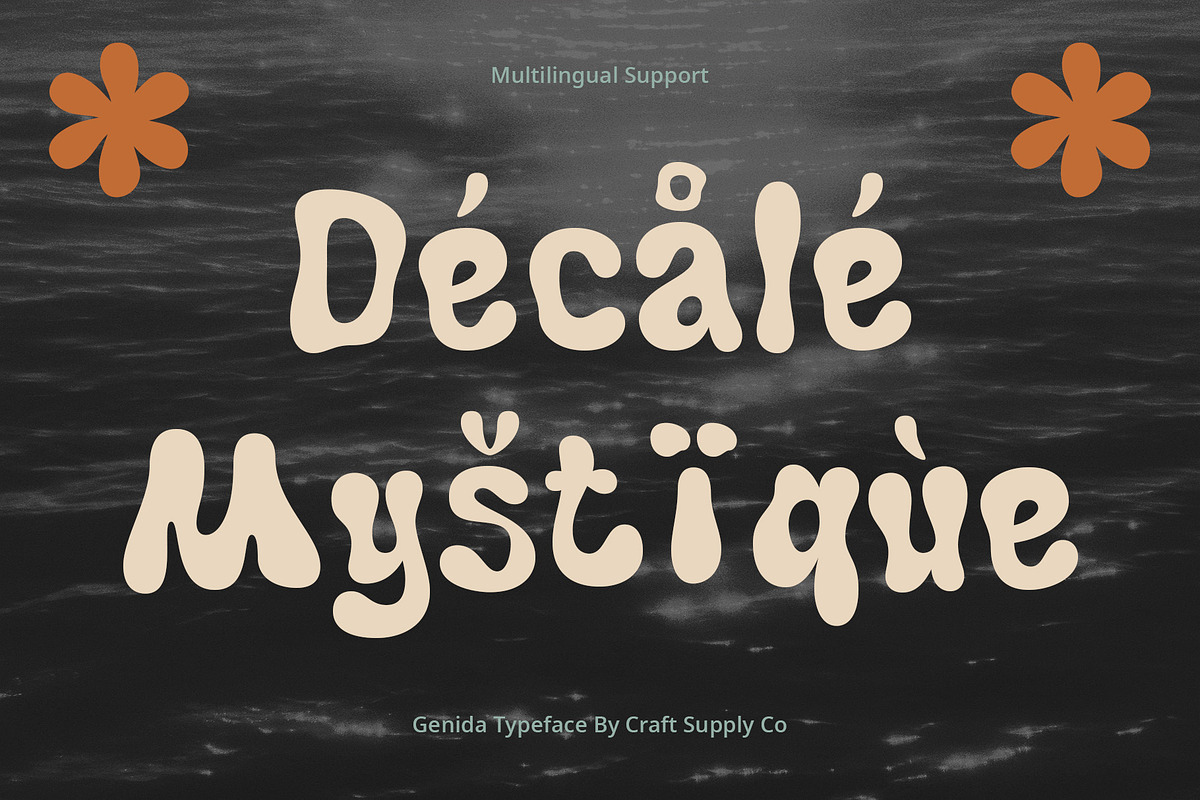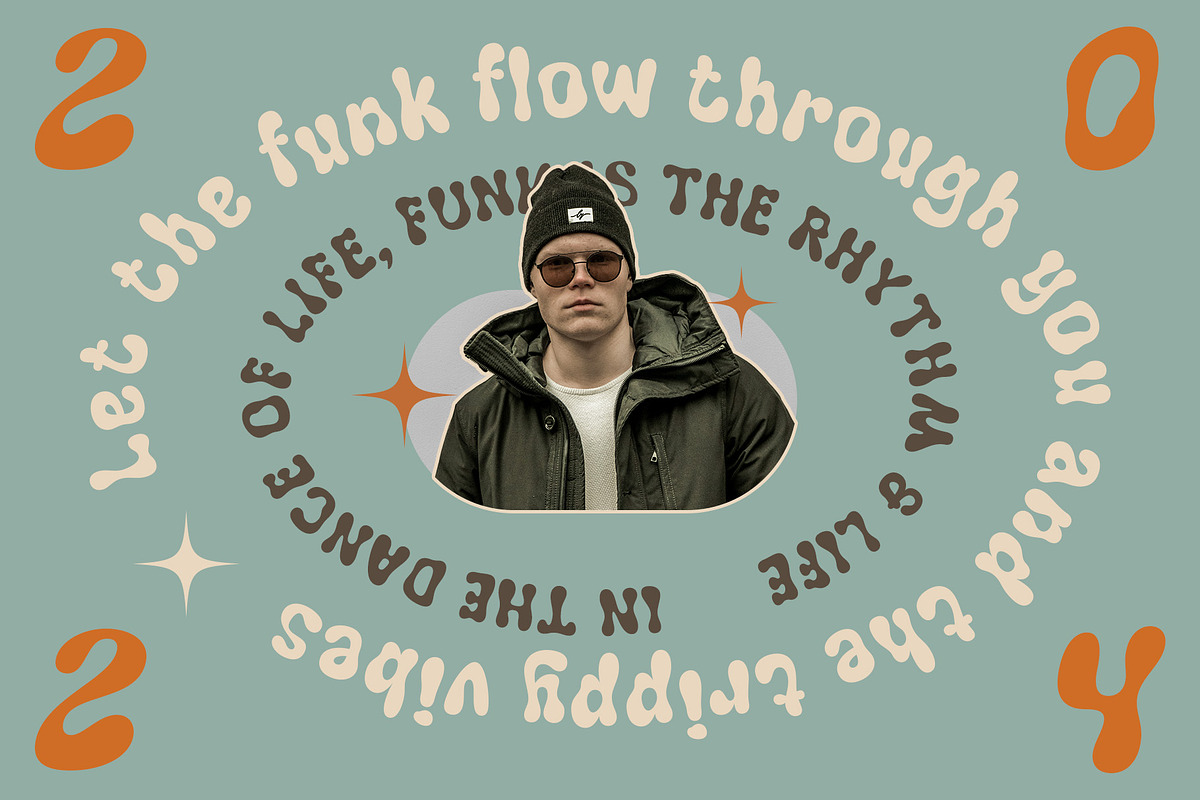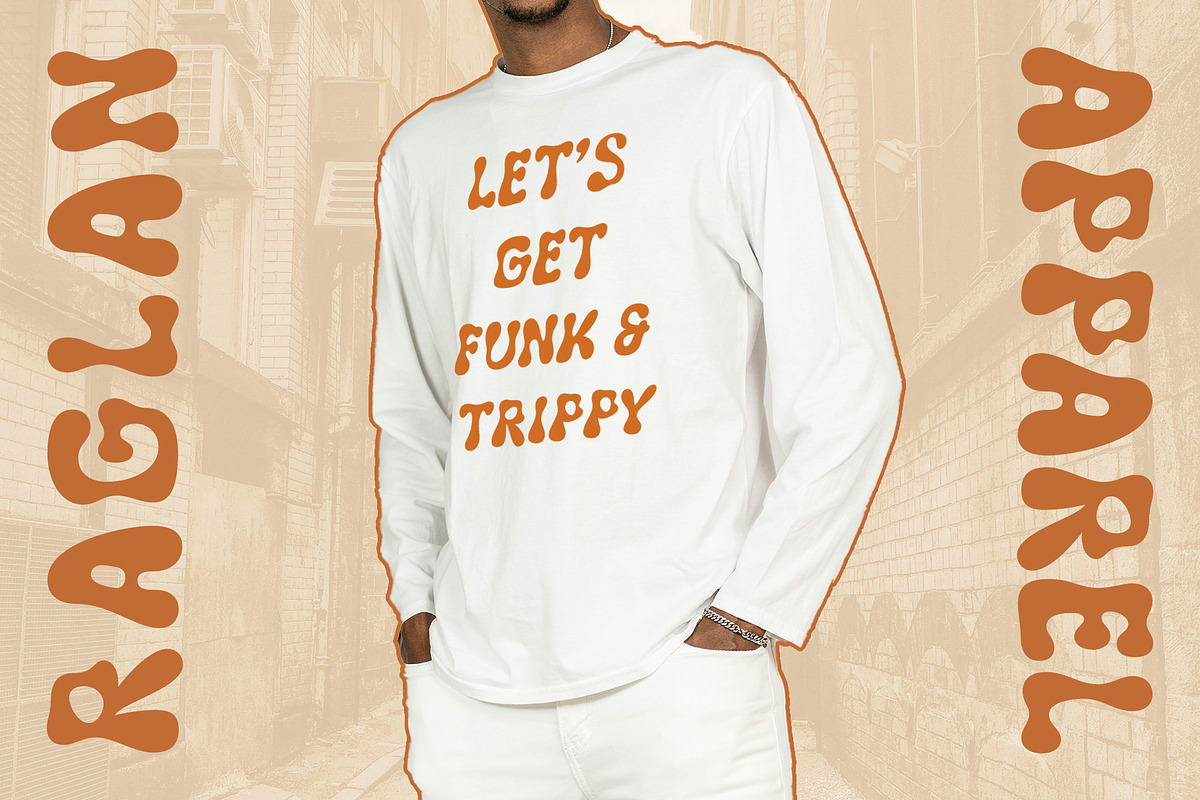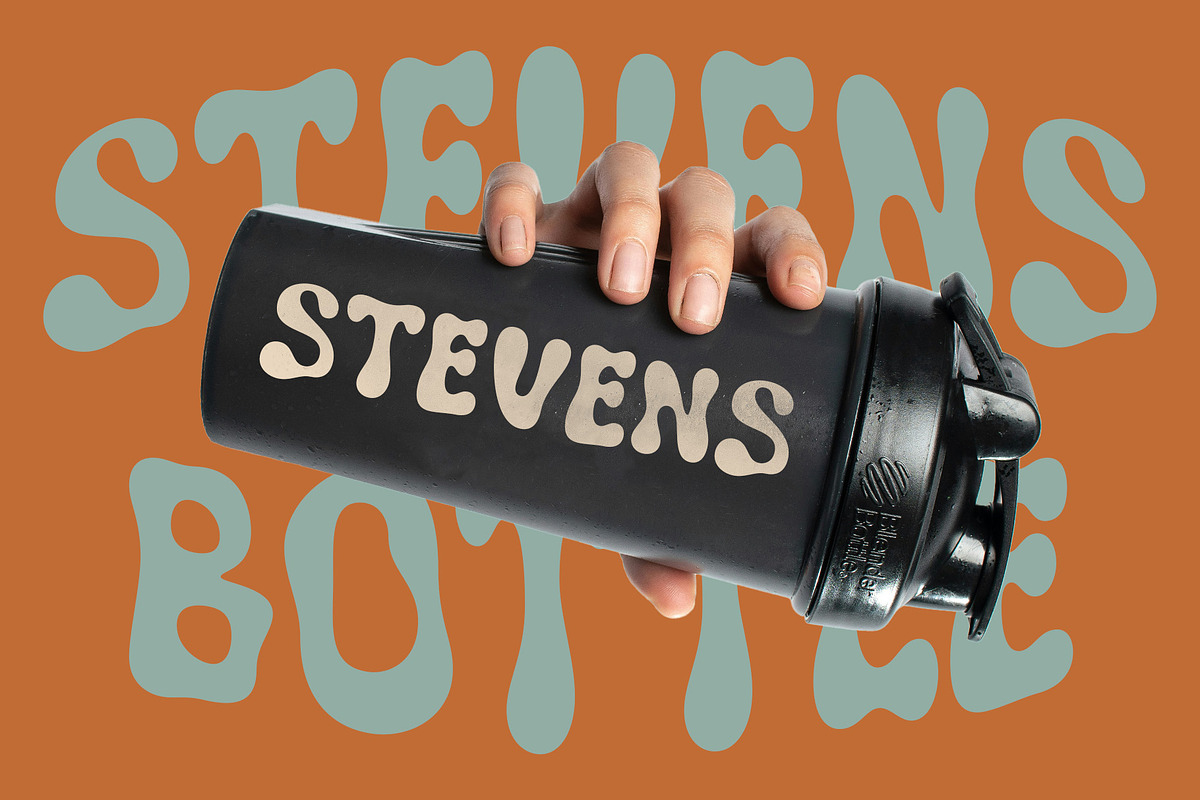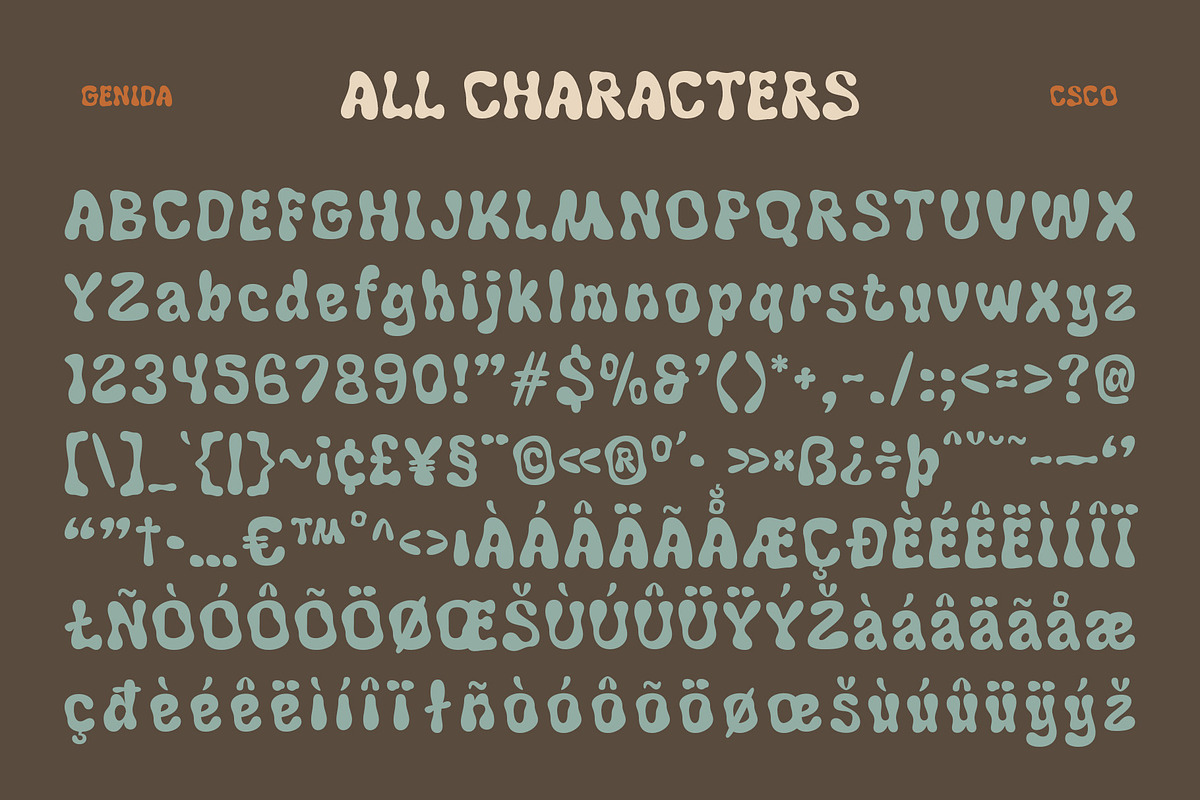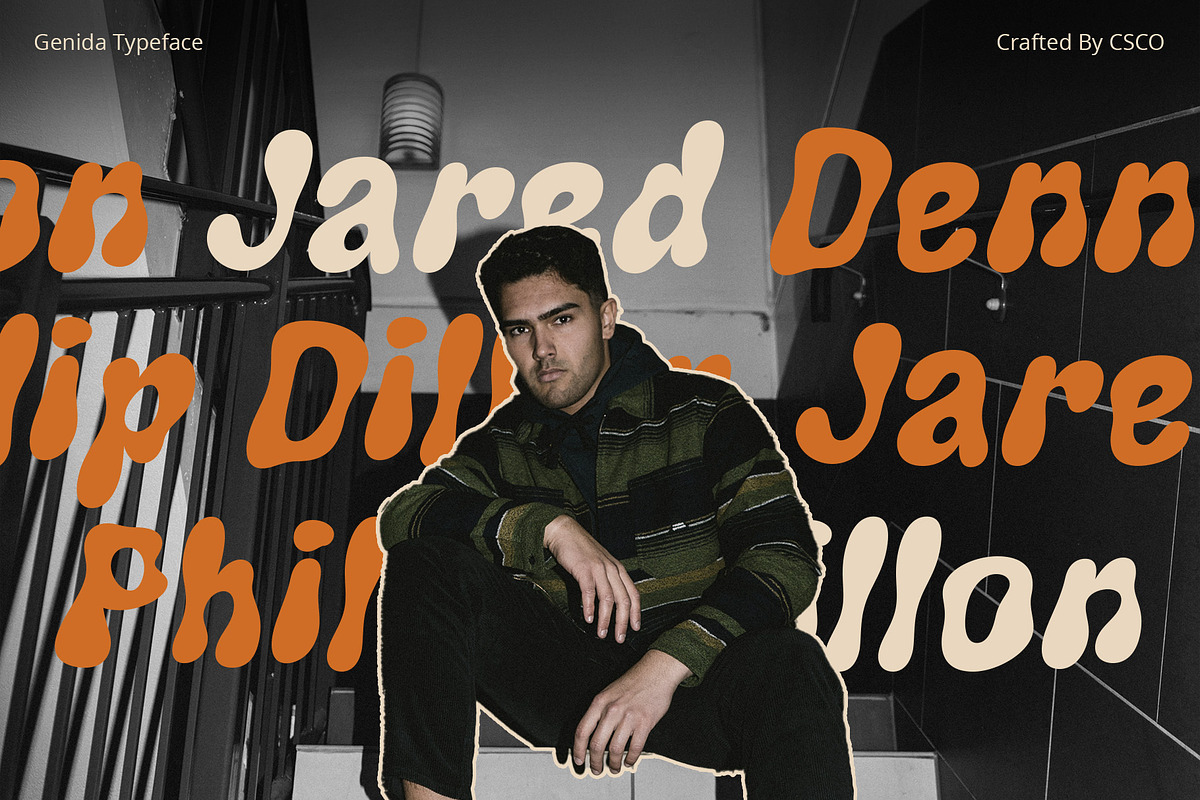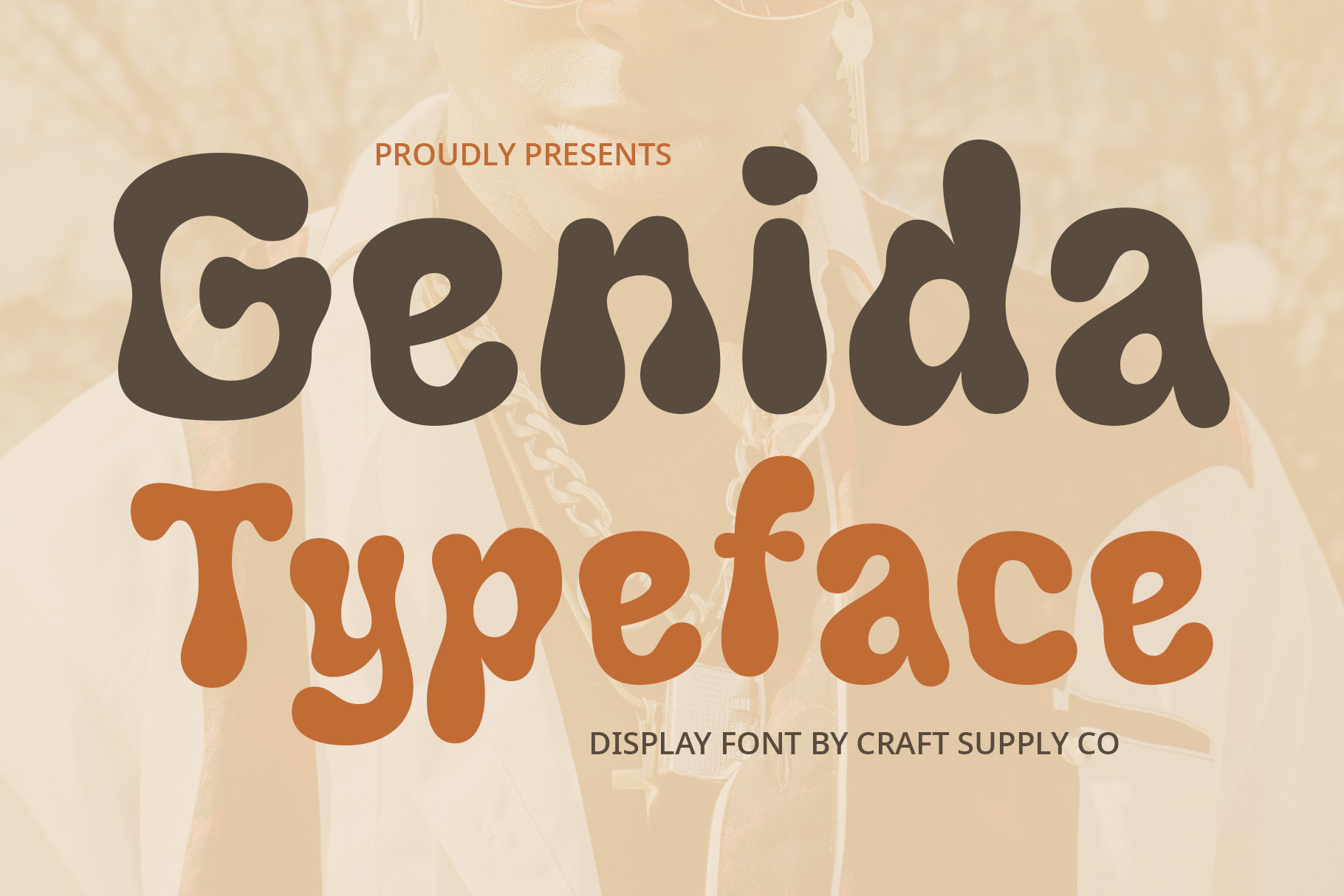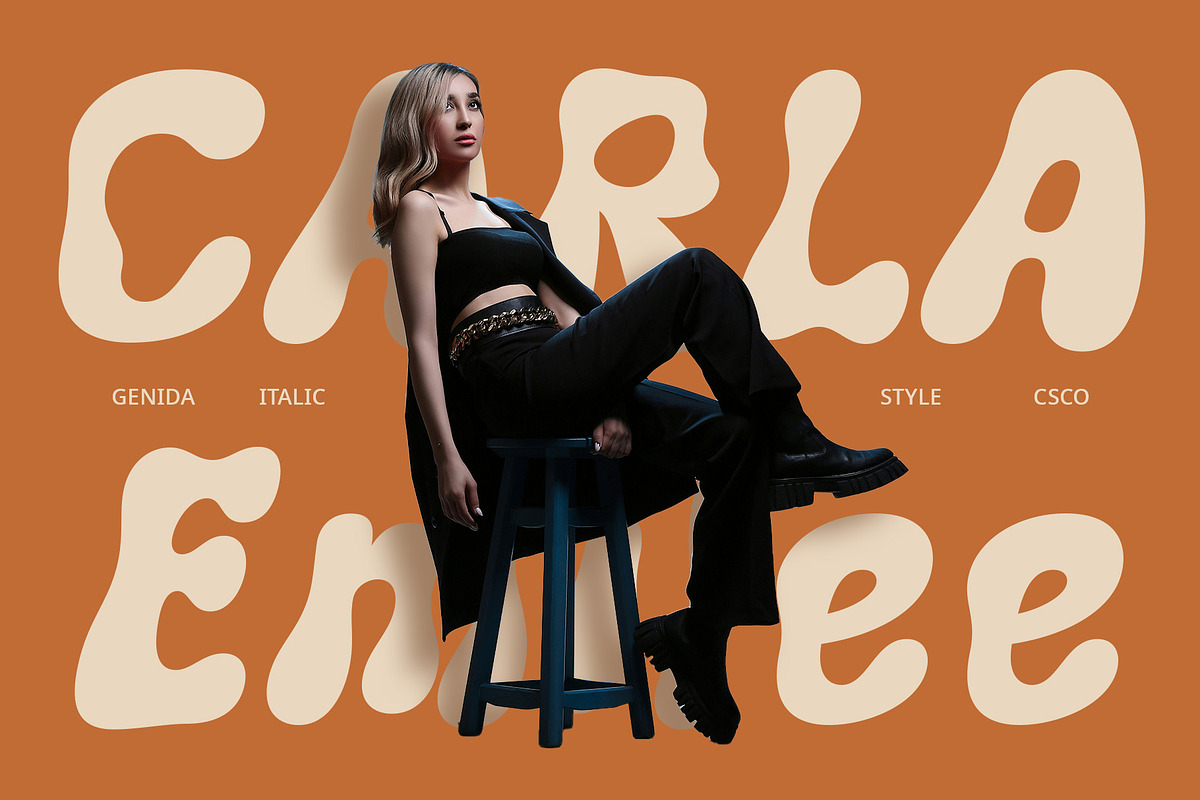
Genida – Funky Typeface
Genida – Funky Typeface: Unleash Your Creative Spirit with Genida
Psychedelic Vibes in Every Letter Genida is a funky and trippy display font that brings a unique and captivating impression to your designs. Inspired by psychedelic vibes, this font is perfect for those looking to add a touch of creativity and individuality to their projects.
Stand Out from the Crowd With its unconventional and eye-catching design, Genida helps your designs stand out from the crowd. Whether you’re creating posters, album covers, or social media graphics, Genida adds a distinctive flair that grabs attention and leaves a lasting impression.
Perfect for the Creative Soul Genida is designed for the creative soul. Its funky and trippy style is perfect for expressing your unique vision and adding a playful touch to your designs. Let your imagination run wild with Genida as your creative companion.
Inspired by Psychedelic Art Drawing inspiration from psychedelic art, Genida brings the spirit of the 60s and 70s to your designs. Its swirling, dynamic shapes and vibrant colors evoke a sense of freedom and creativity, making it perfect for projects that require a bold and expressive touch.
- Genida Regular
- Genida Italic